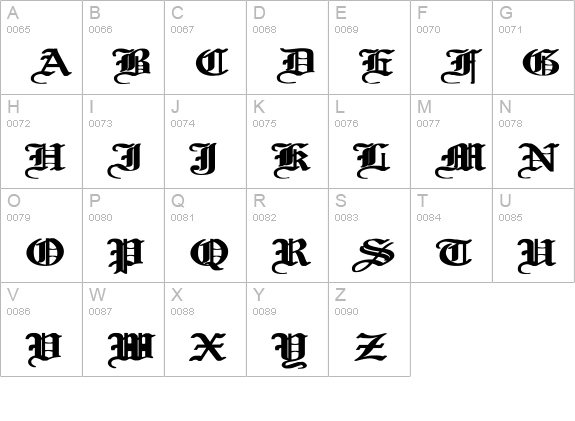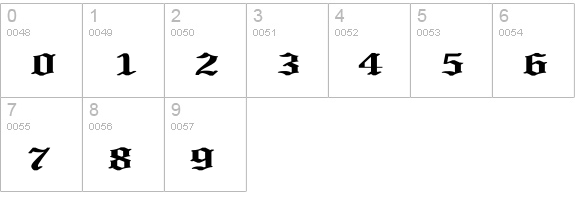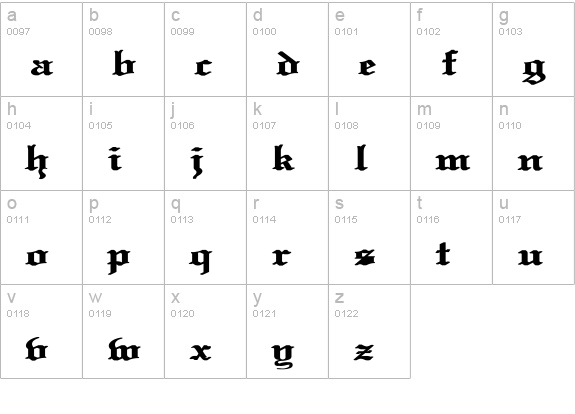
Old English Wd Bold is a strong, high-contrast variant in the Old typeface family \xE2\x80\x94 well suited to headlines, attention-grabbing titles, and strong calls-to-action.
Old English Wd Bold is a striking and elegant font that brings a touch of historical charm to any design. With its intricate details and traditional Old English style, this font is perfect for creating invitations, posters, and other projects that require a touch of sophistication. Best of all, Old English Wd Bold is completely free to download at FontsMarket.com. This means that you can easily add this beautiful font to your collection without any cost. Whether you are a designer looking to add a classic touch to your work or a hobbyist exploring new fonts, Old English Wd Bold is a fantastic choice that won't break the bank. Download it today and start creating stunning designs with this timeless font.